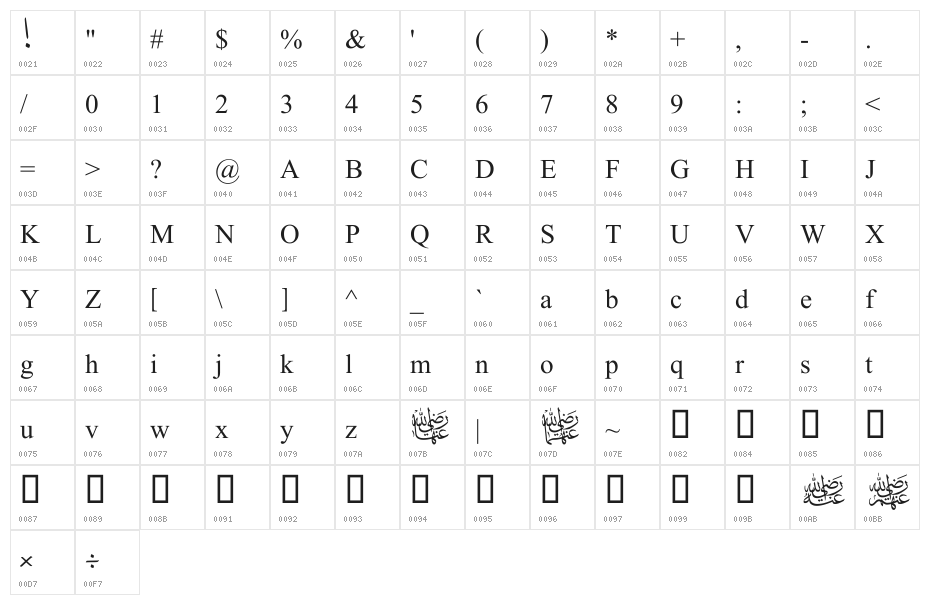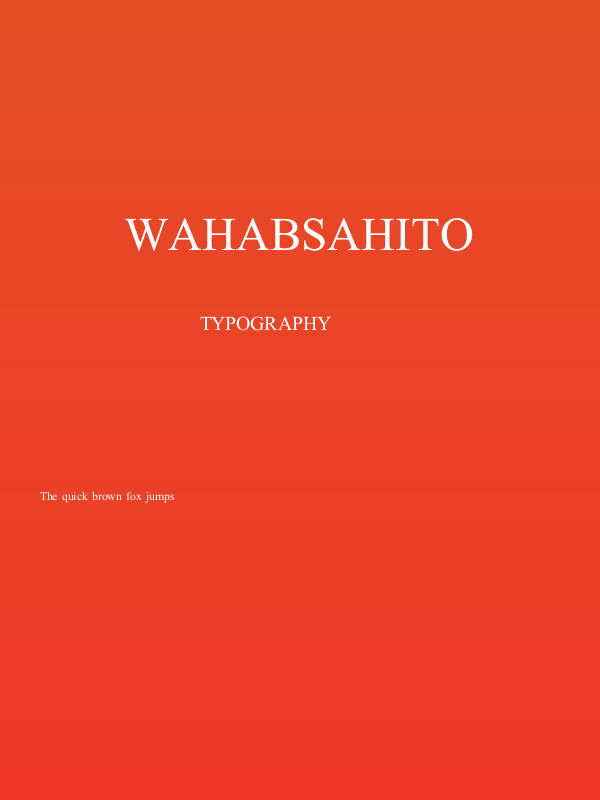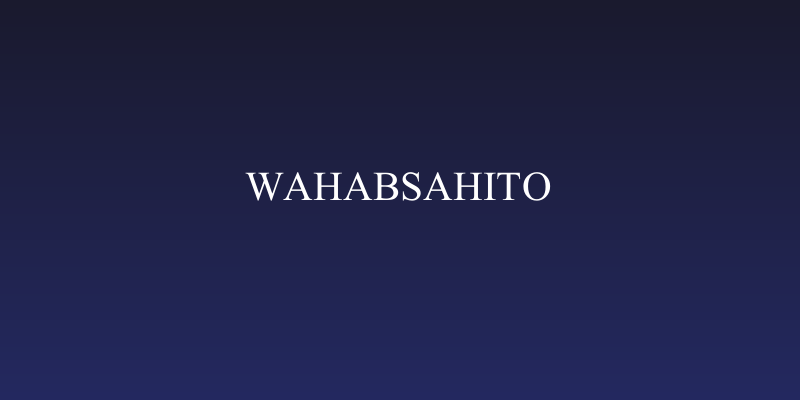
WahabSahito Font
WahabSahito Description
This font exhibits a classic serif style with elegant and refined strokes. The characters are well-proportioned, featuring distinct serifs that add a touch of sophistication. The uppercase letters are bold and commanding, while the lowercase letters maintain a graceful flow. Numbers are clear and easily readable, making them suitable for various applications. The special characters are designed with the same attention to detail, ensuring consistency across the font. This font's timeless appeal makes it versatile for both traditional and modern designs.
Overall StyleClassic